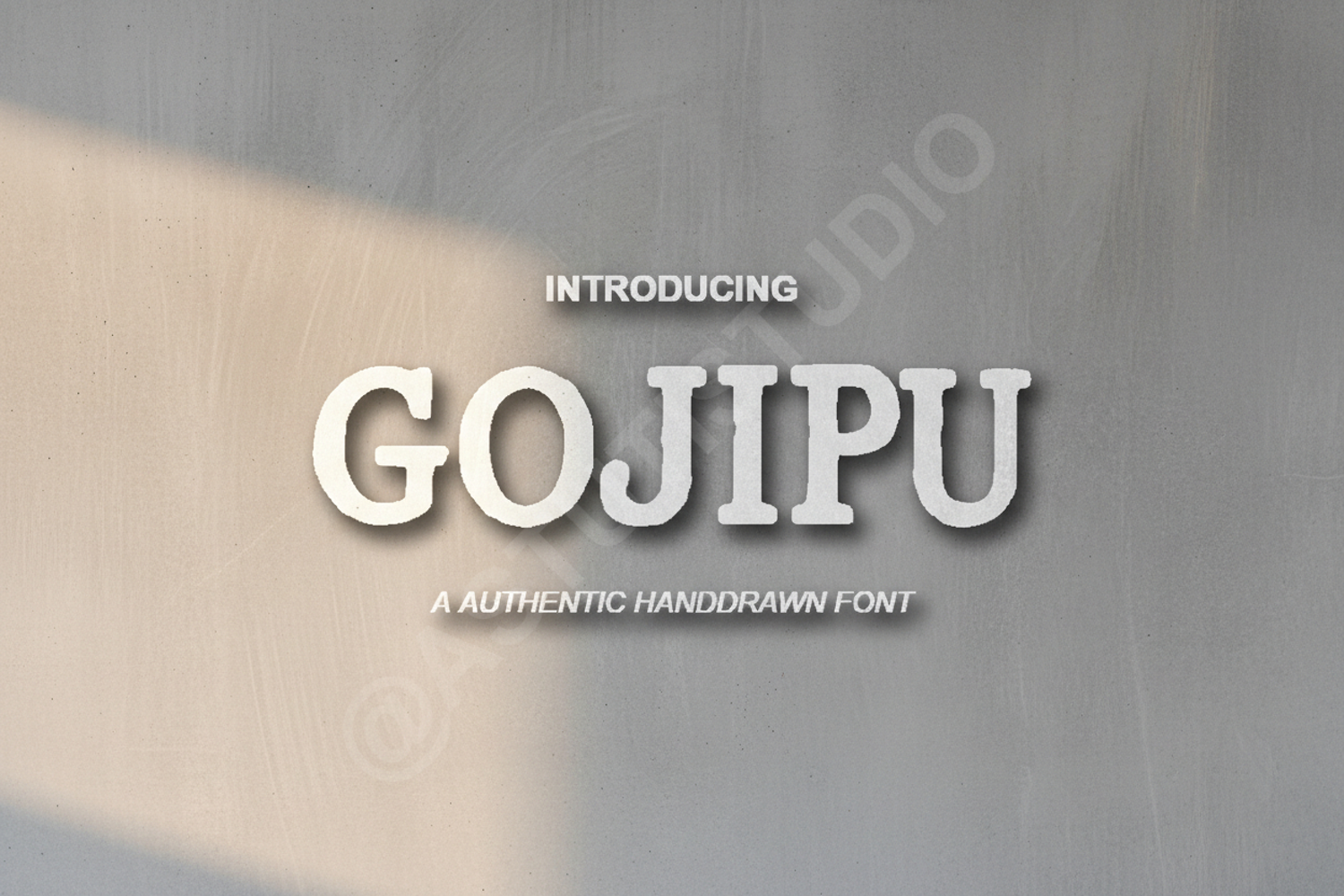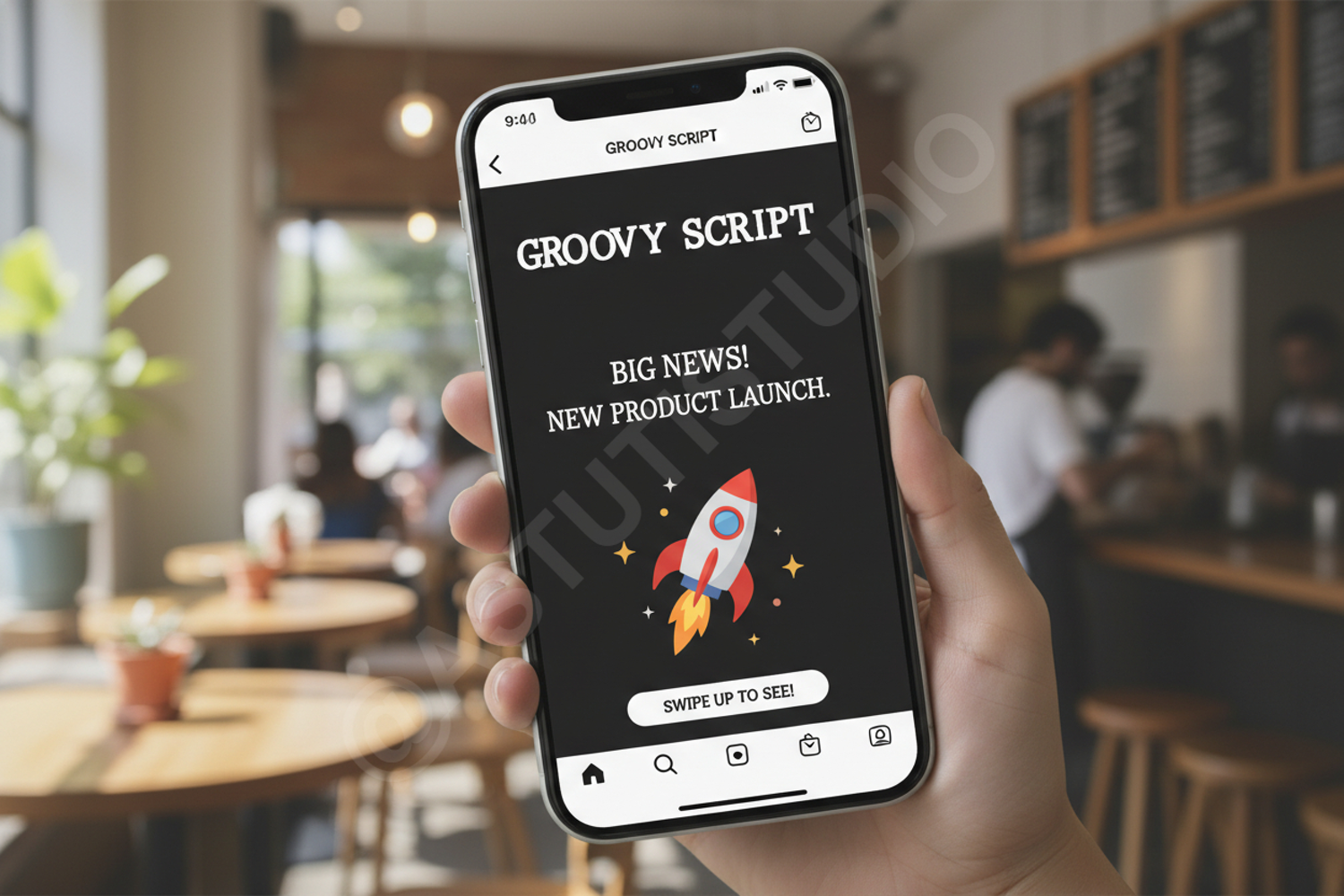
Gojipu - Modern Elegant Serif Typeface
Gojipu
Elevate your creative projects with Gojipu, a premium serif typeface designed to blend timeless elegance with modern flair. Meticulously crafted for high-end aesthetics, Gojipu offers a unique balance of sharp lines and graceful curves, making it a versatile choice for designers seeking sophistication and impact. Whether you are working on a minimalist layout or a bold luxury brand, Gojipu provides the professional edge your design deserves.
Perfect For
- Luxury Branding and Identity: Create memorable logos and brand marks that exude quality.
- Editorial Design: Ideal for magazine layouts, headlines, and sophisticated body text.
- Wedding Stationery: Add a touch of class to invitations, menus, and place cards.
- Social Media Graphics: Stand out with high-impact quotes and stylish promotional content.
- Packaging Design: Perfect for high-end product labels and retail boxes.